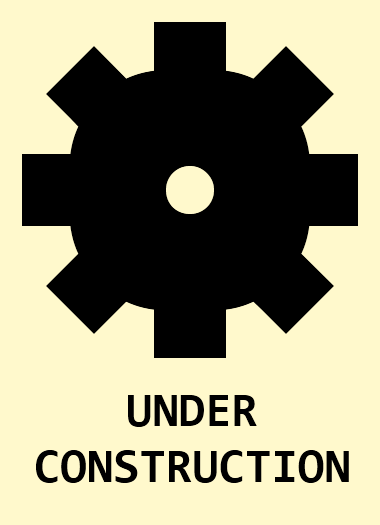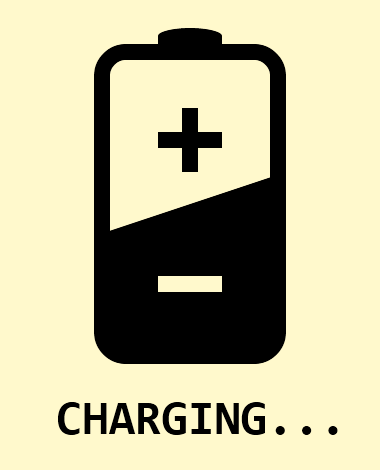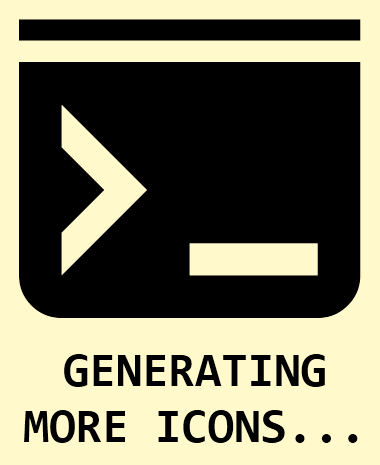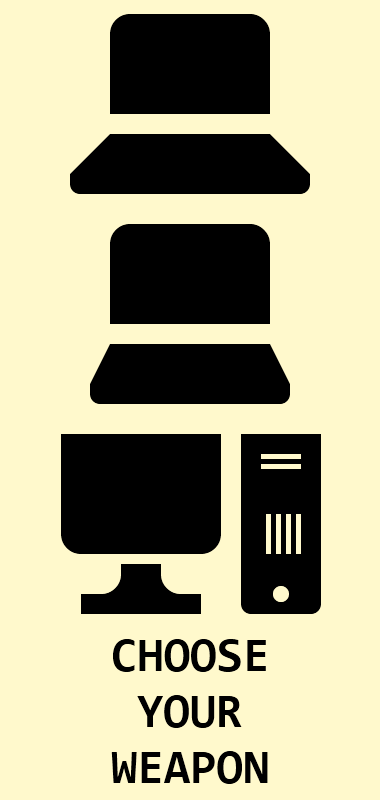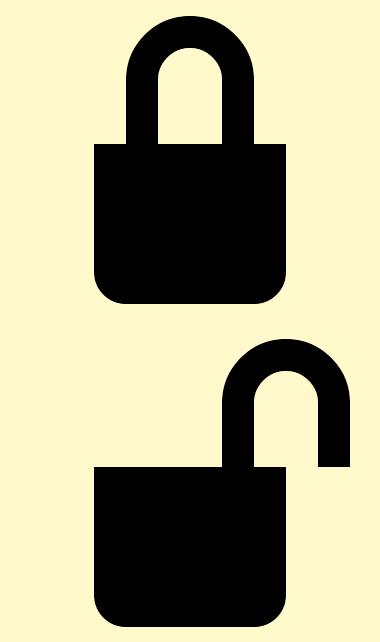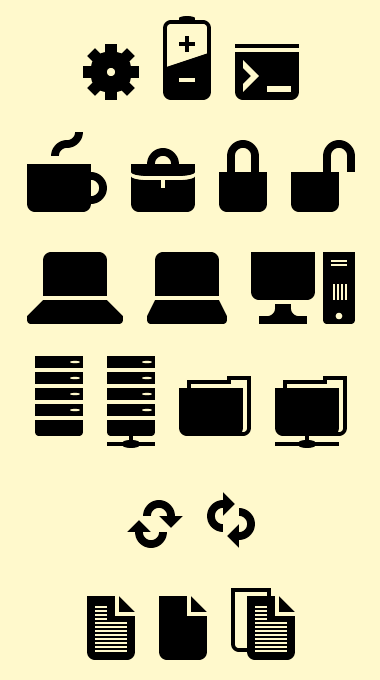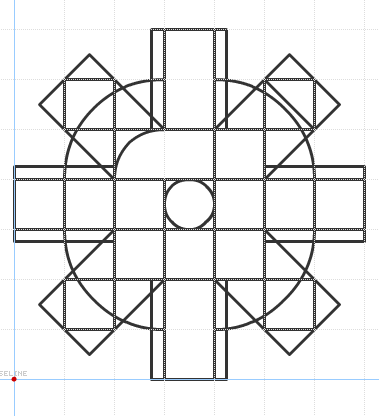
Techdings
by aphoria
More to come...
It shows a lot of promise, regardless of the extremely small amount of characters.
In aphoria we trust.
Love it so far!
Good glyphs!
yeah, i agree. smooth stuff
Congratulations! FontStruct Staff have deemed your FontStruction worthy of special mention. “Techdings” is now a Top Pick.
Love the icons! My favorite one is the coffee cup with steam coming out of it! Reminds me of my mom, sitting on the couch.
wonderful!
Cool is all i can think of